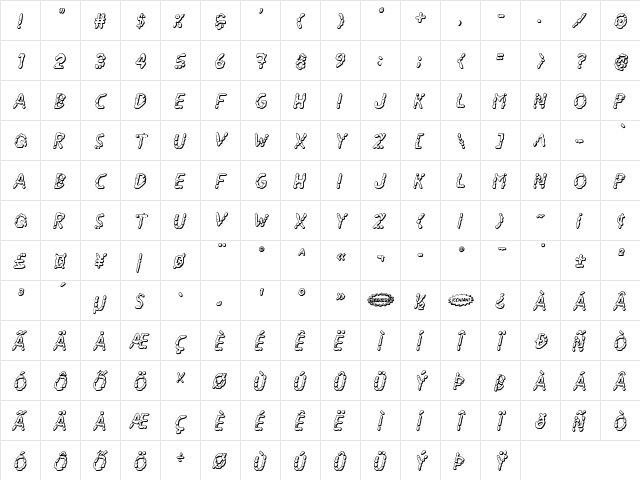
Blood Drenched 3D Italic Regular
Design Context for Blood Drenched 3D Italic Typeface
Blood Drenched 3D Italic carries an unsettling edge — its distorted letterforms are built to unsettle, perfectly suited to horror, Halloween, and dark creative work. Its italic angle brings a sense of urgency and motion to the letterforms.
Perfect for anything that needs to unsettle — game titles, horror branding, and macabre invitations.
Font Pairing: Pair with a clean neutral sans-serif for body copy to let Blood Drenched 3D Italic's character lead without overwhelming the composition.
Pro Tip: Use Blood Drenched 3D Italic at larger display sizes for maximum impact. Consider generous tracking to let the disturbing character of each letterform breathe.